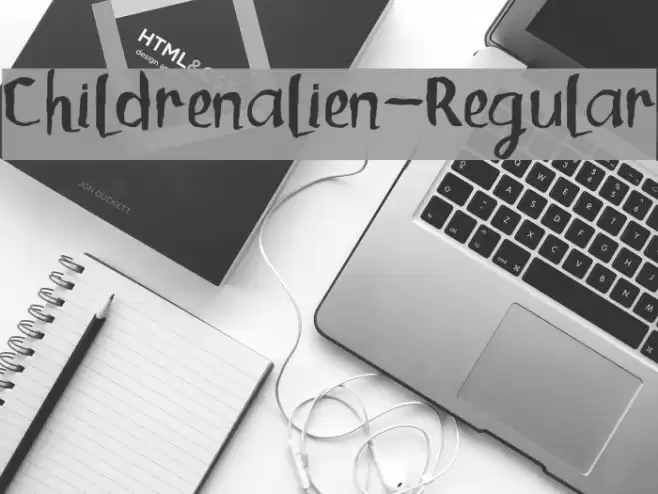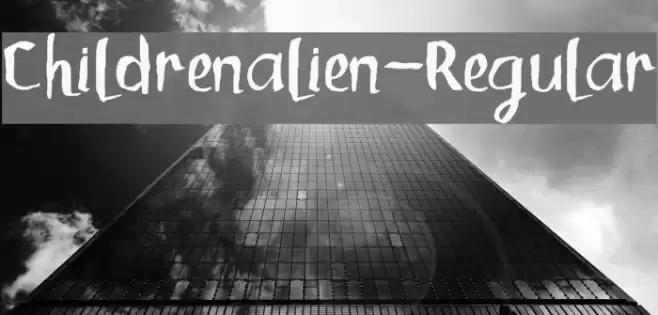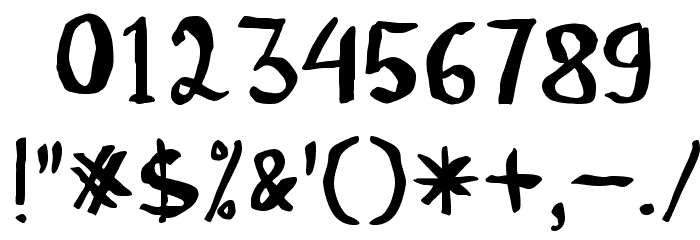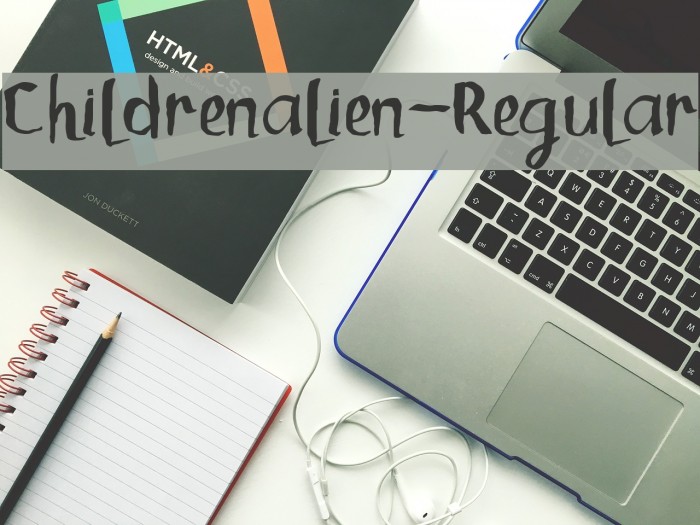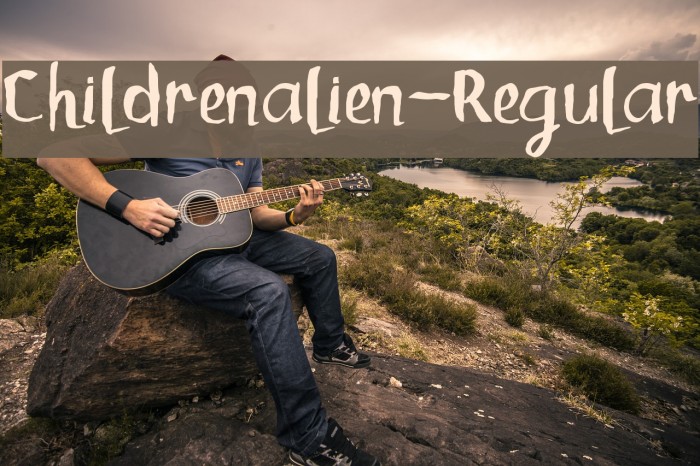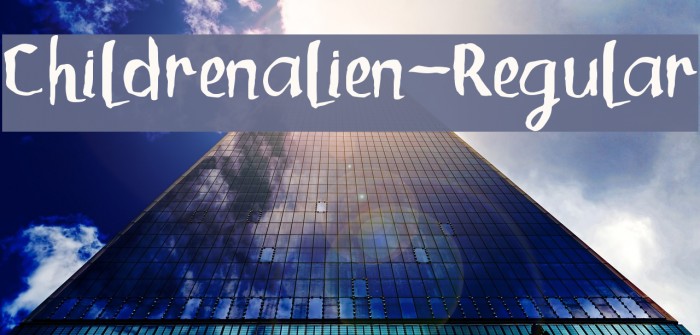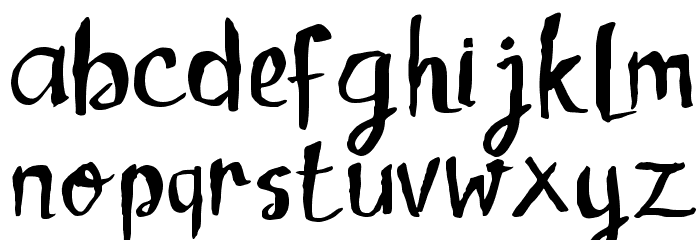
Childrenalien-Regular Font
Childrenalien-Regular Description
This font exhibits a playful and whimsical style, characterized by its irregular, hand-drawn appearance. The letters have a slightly uneven baseline, giving them a lively and dynamic feel. The strokes are bold and varied, with some letters featuring thicker lines and others more slender, creating a sense of movement and energy. The overall look is reminiscent of a child's handwriting, with a touch of artistic flair. This font is perfect for projects that require a fun and informal tone, such as children's books, playful branding, or creative invitations.
A playful, hand-drawn font with a whimsical and dynamic style from Uncategorized fonts.
- Proposed Projects: Ideal for children's books, playful branding, creative invitations, and informal designs.
- Overall Style: Playful, Whimsical
- Use Case: Headlines, Logos, Creative projects